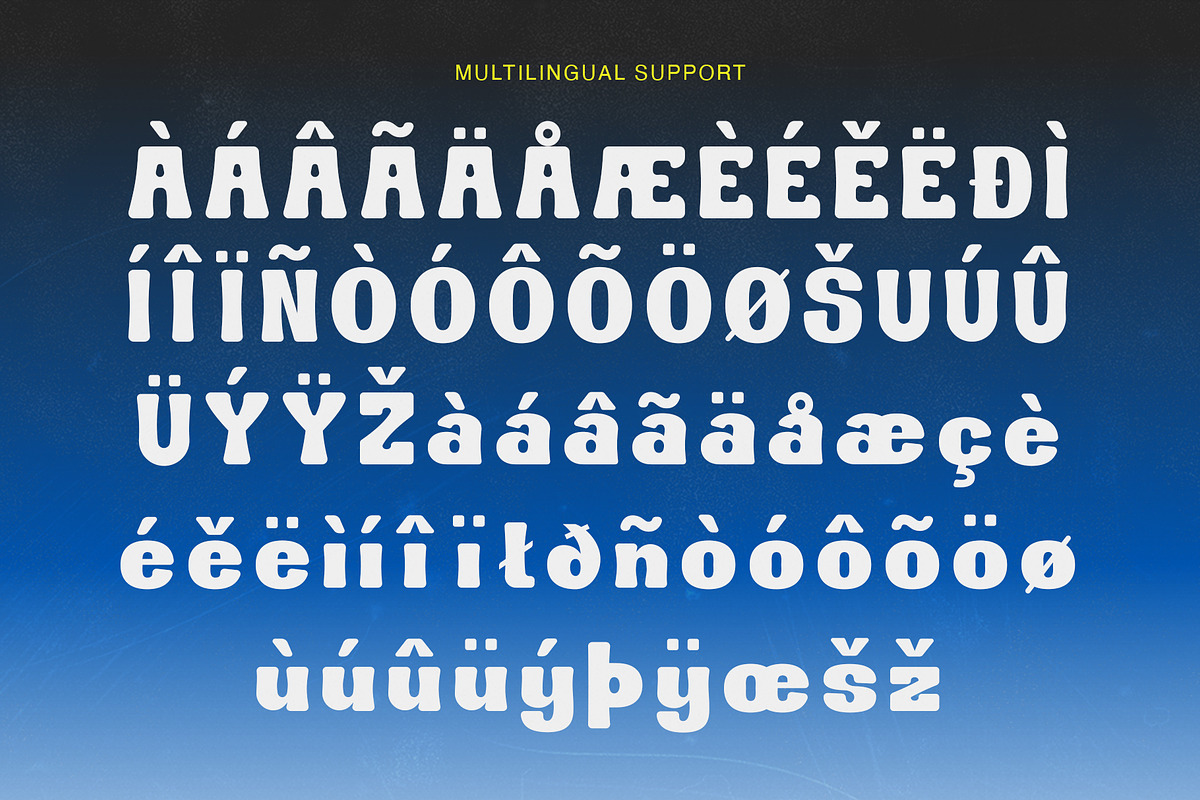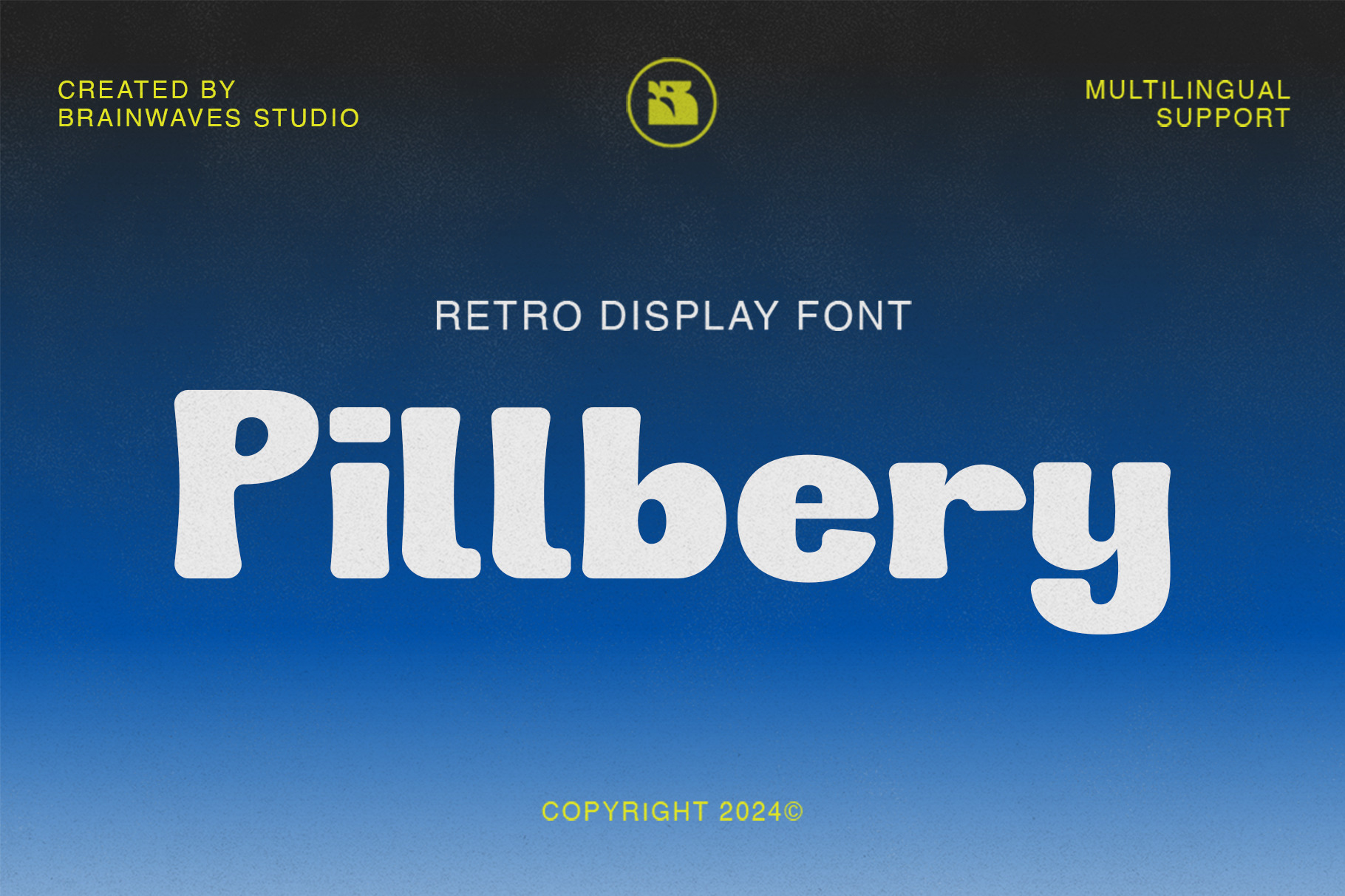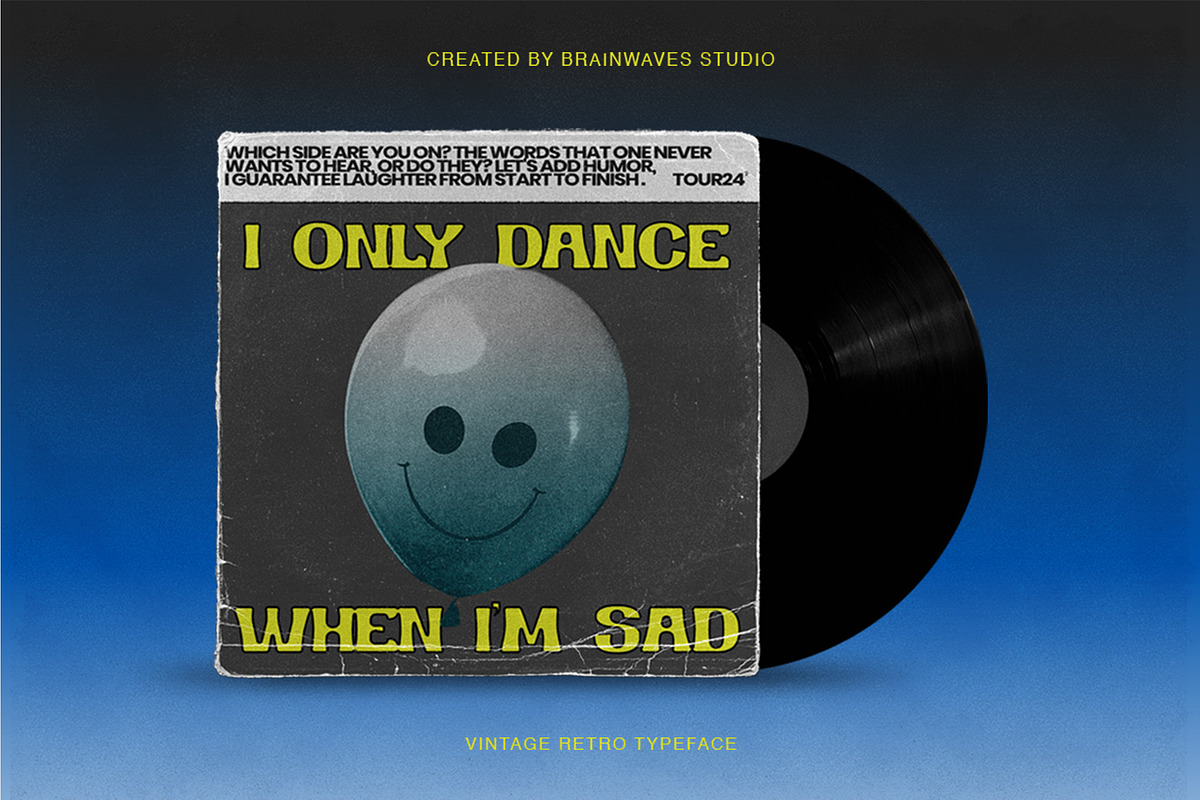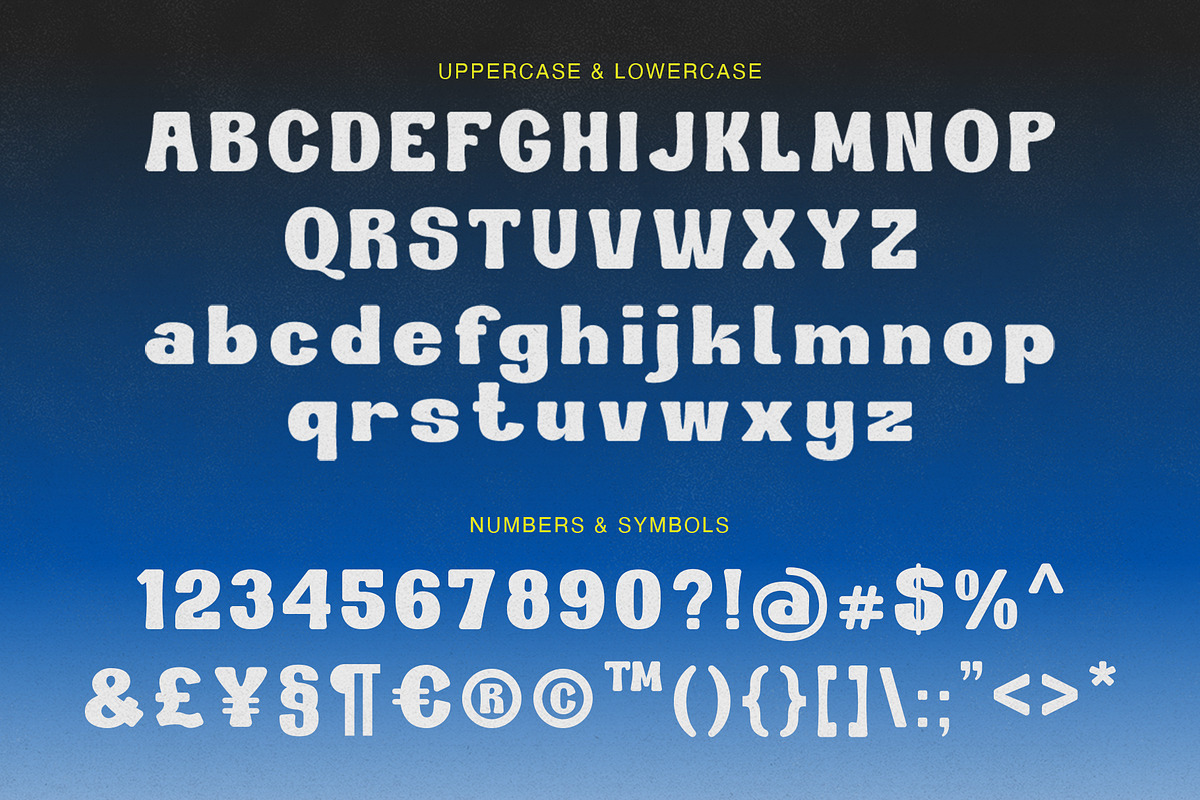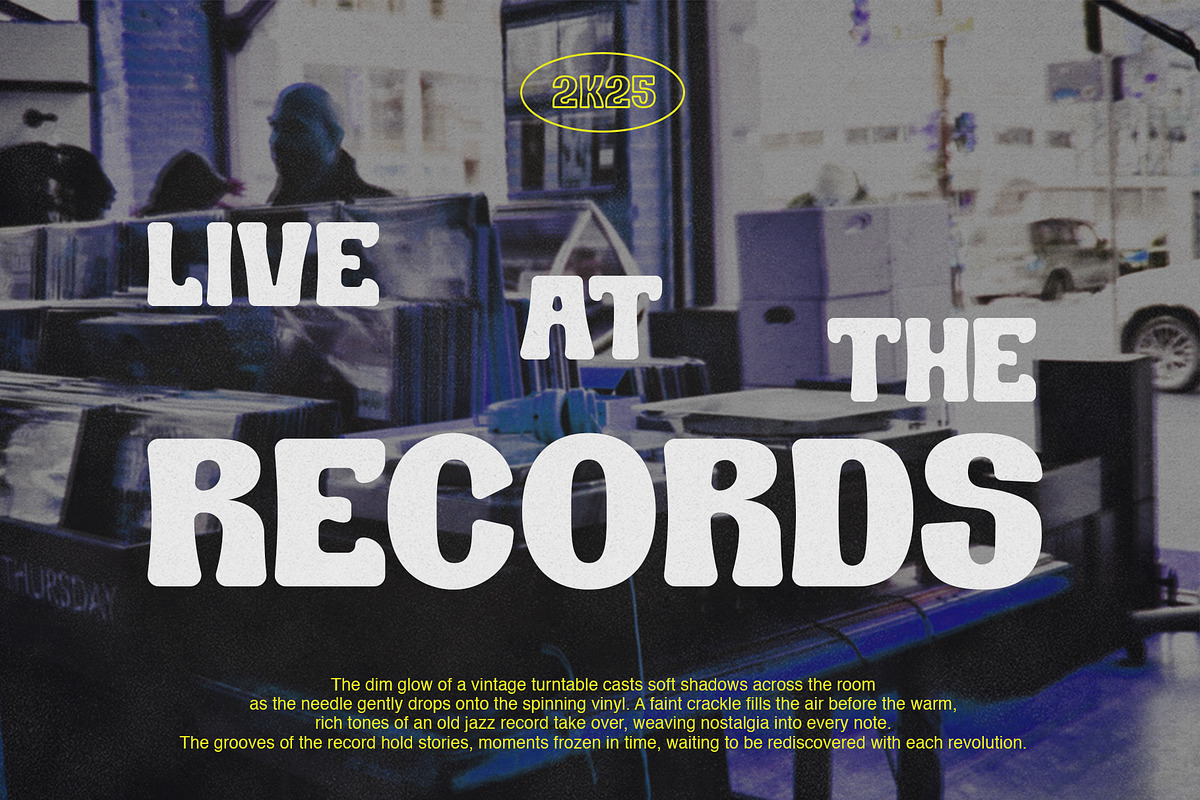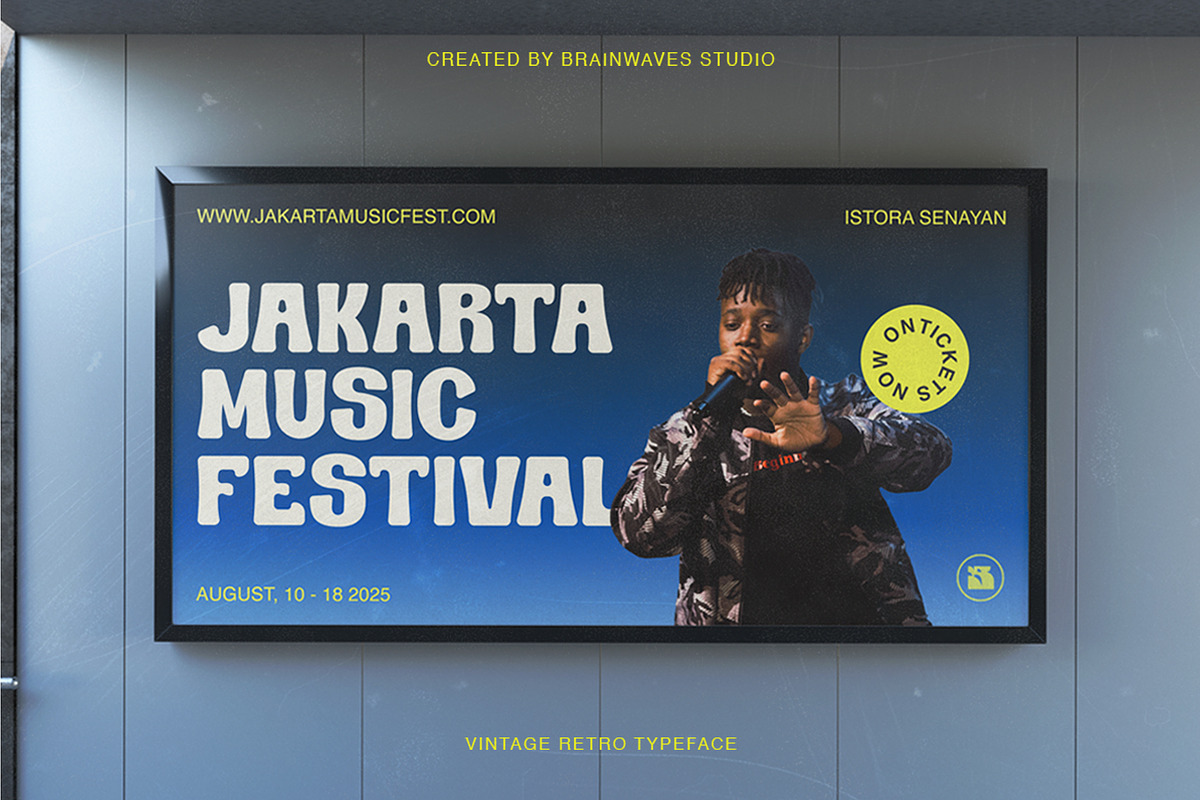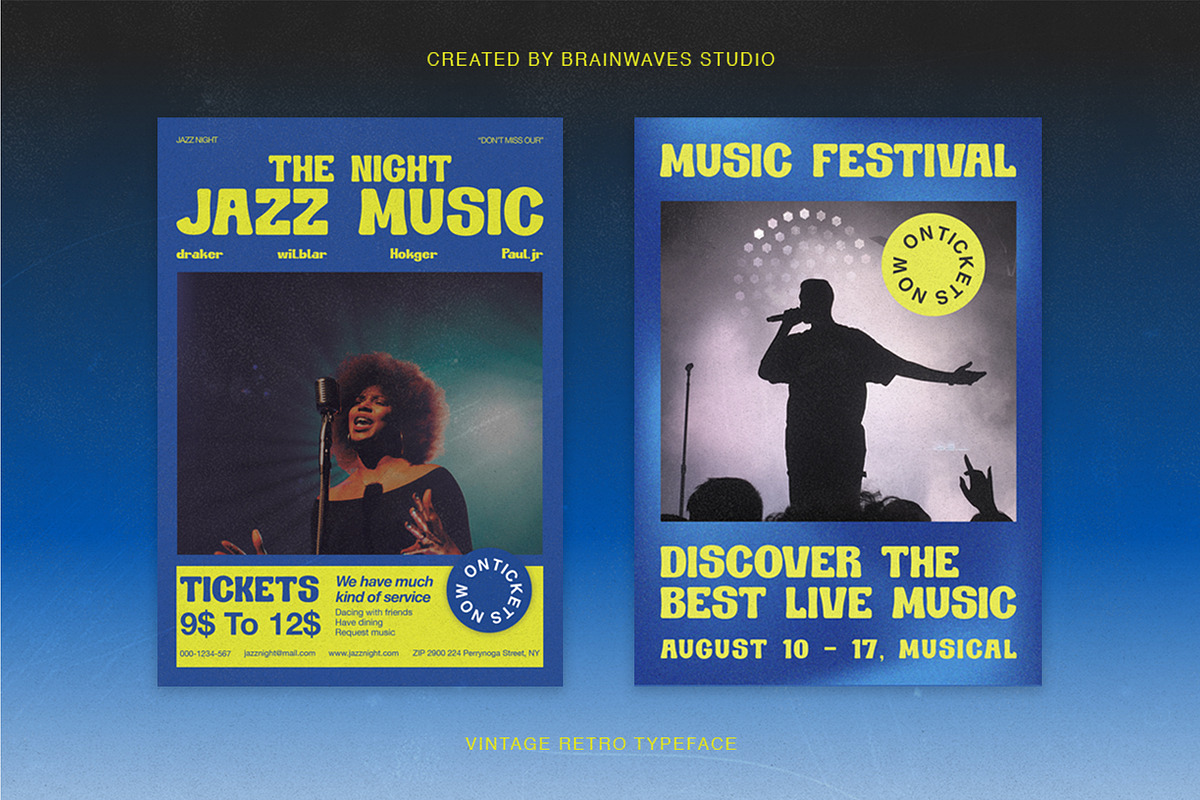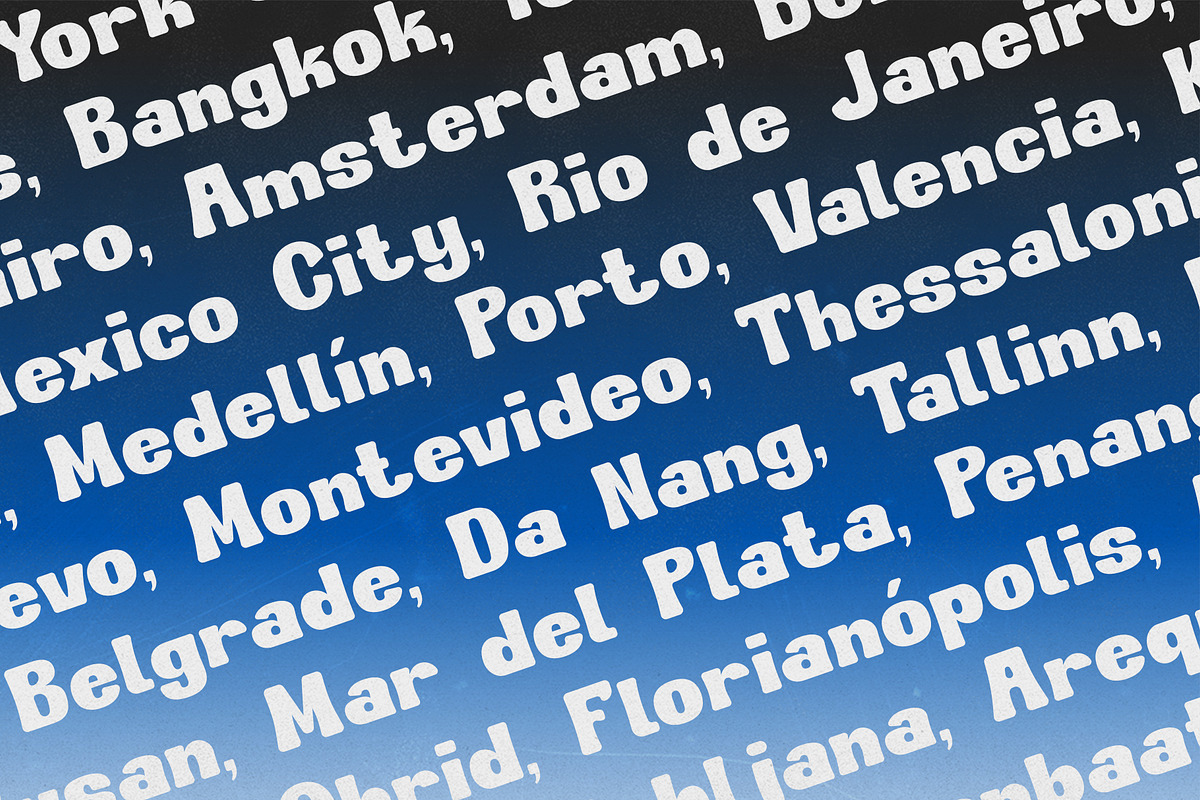
Pillbery - Retro Display Font
A retro-inspired display font with a fun and nostalgic touch! With its bold, slightly rounded letterforms, Pillbery brings a vintage yet modern feel to your designs. Perfect for posters, branding, packaging, and any creative project that needs a standout, eye-catching typeface.